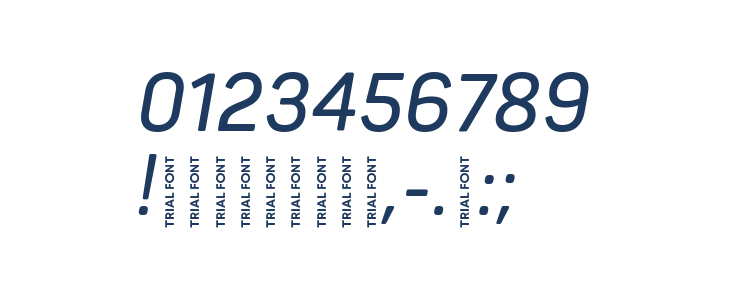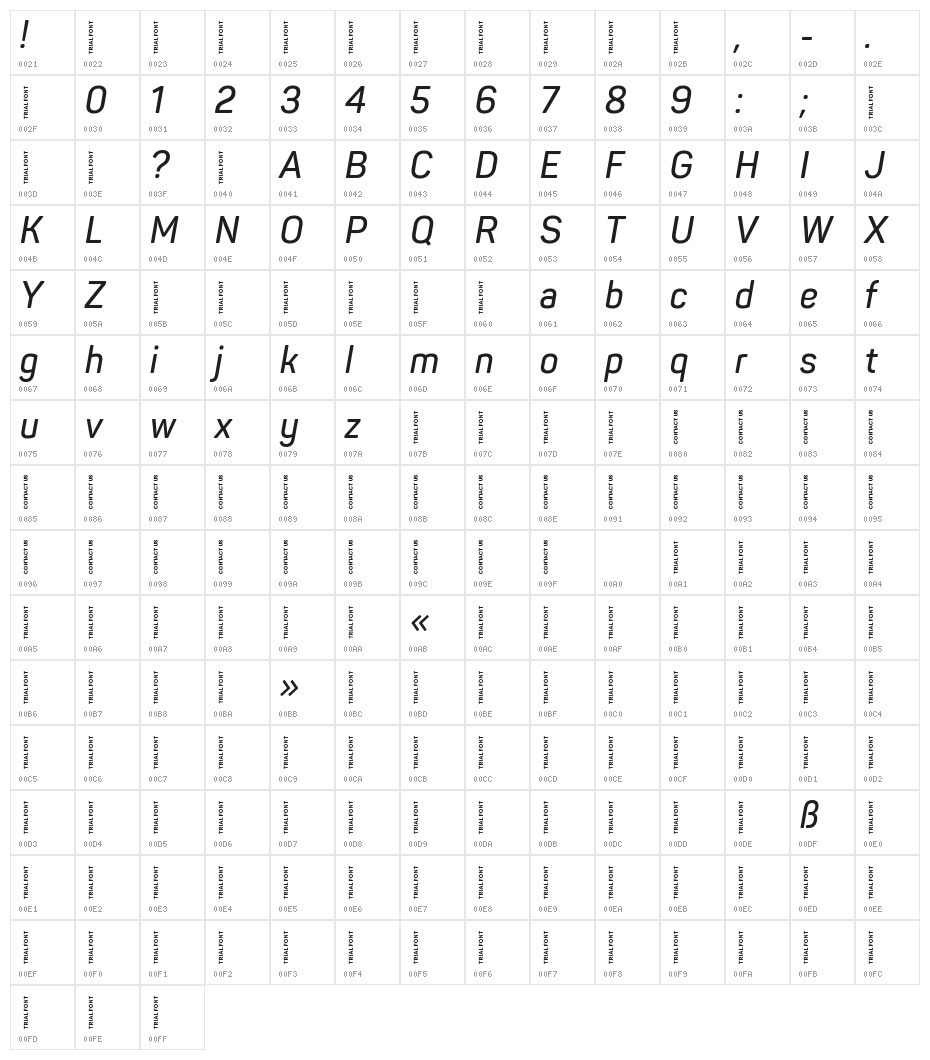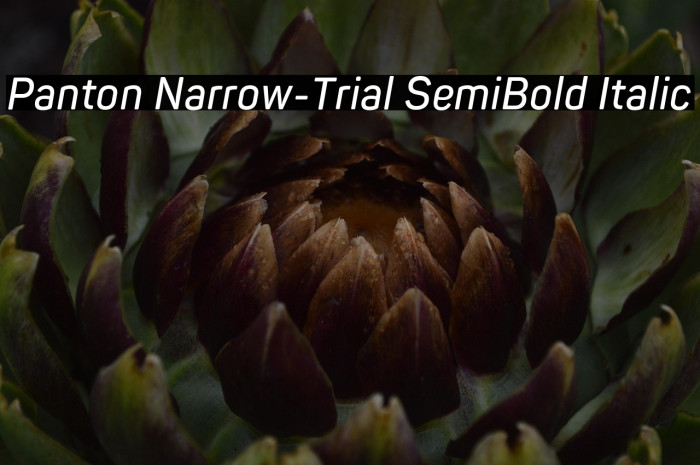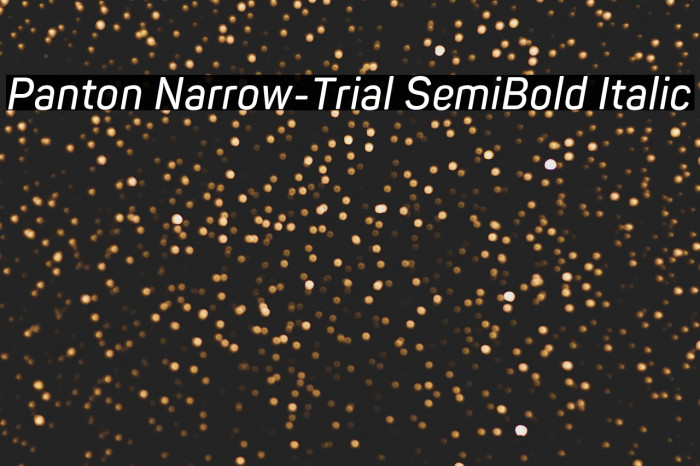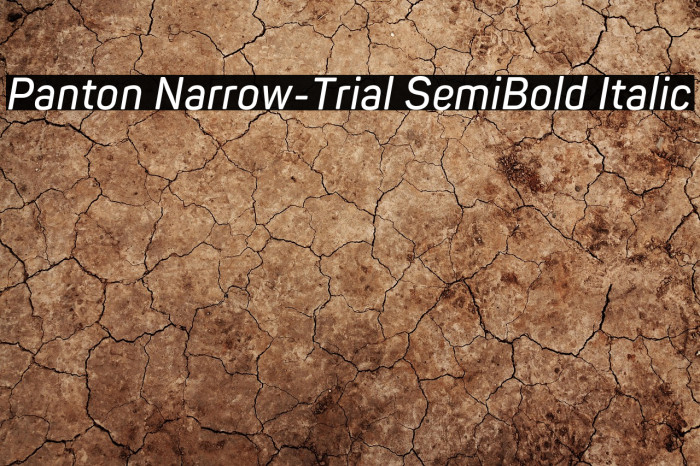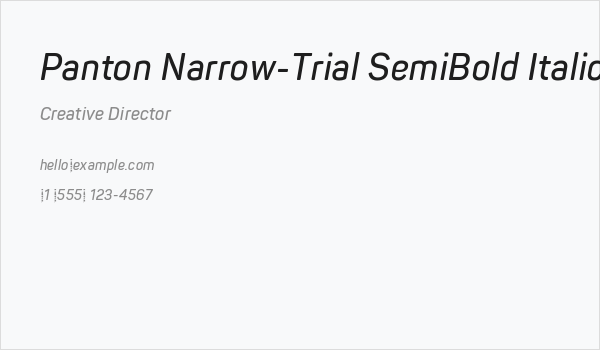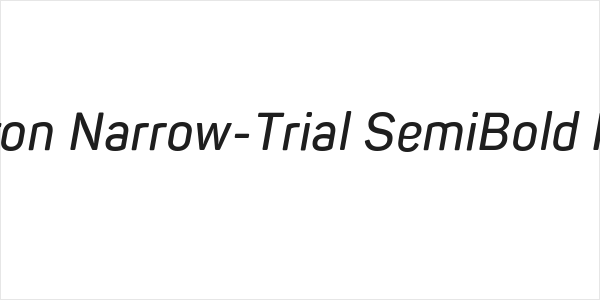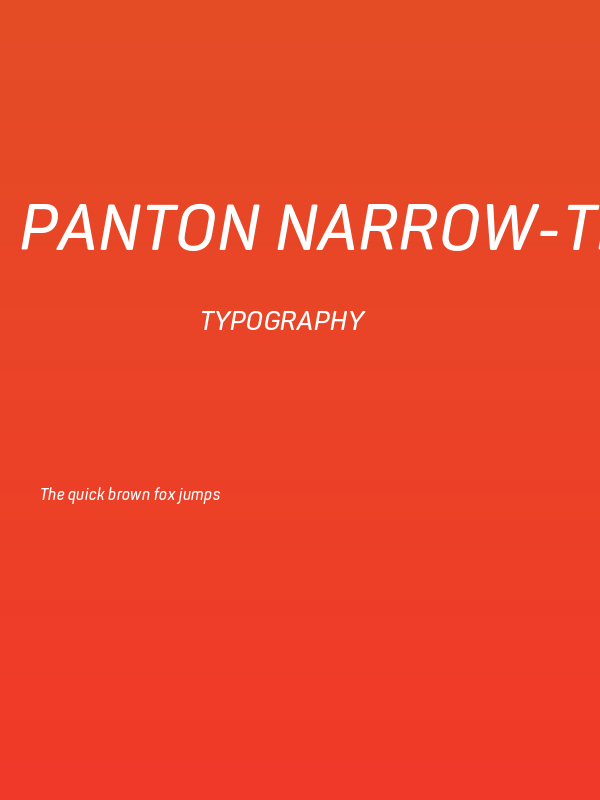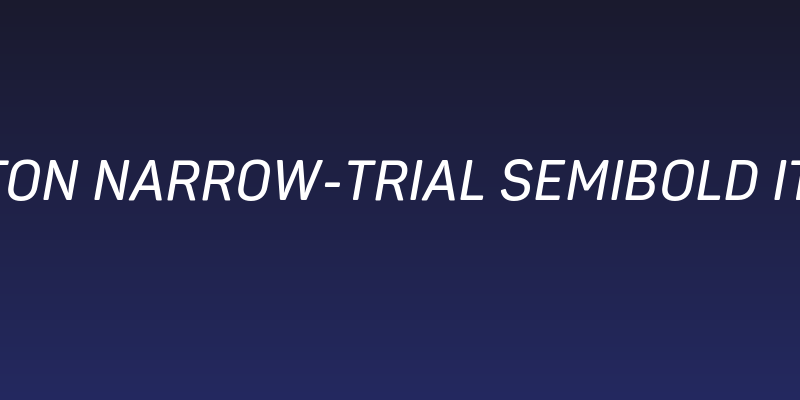
Panton Narrow-Trial SemiBold Italic Font
Panton Narrow-Trial SemiBold Italic Description
This font features a sleek, modern design with a narrow width and a semi-bold weight. The italic style adds a dynamic and forward-leaning appearance, making it suitable for contemporary and professional applications. The characters are clean and well-defined, with a slight slant that enhances readability while maintaining a stylish look. The numerals and special characters are consistent with the overall aesthetic, providing a cohesive appearance across all glyphs. The font's design is versatile, making it ideal for a variety of digital and print media.
| Use Case | Headlines, Logos, Digital Media |
| Proposed Projects | Ideal for branding, advertising, digital media, and editorial design projects. |